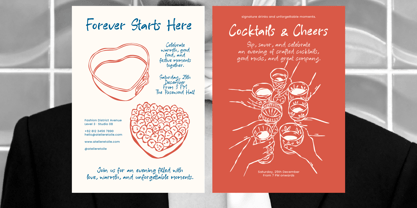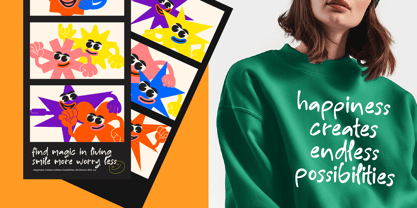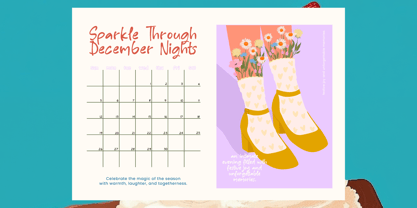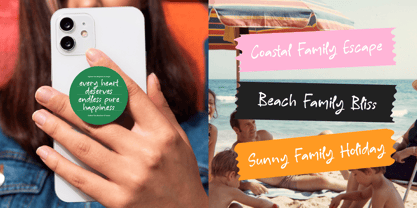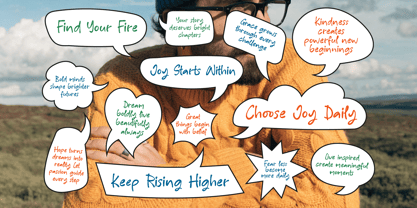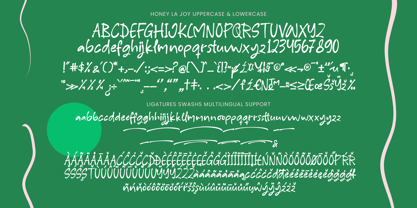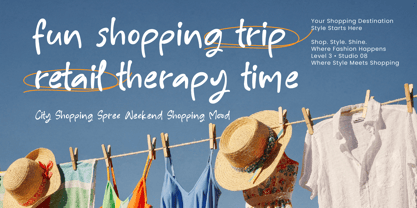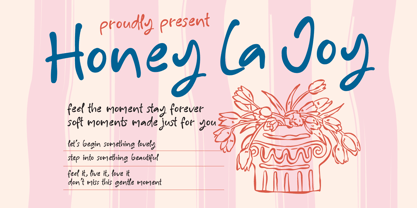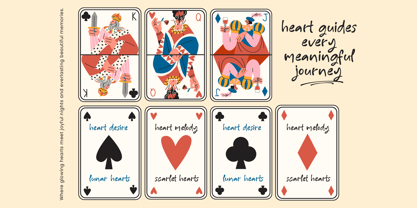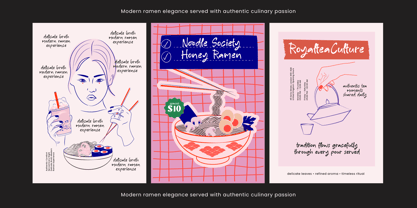
Honey La Joy
The Honey La Joy Font Family was designed by Heru Utama Putra and published by Letterena Studios. Honey La Joy contains 2 styles and family package options. More about this family
Honey La Joy - Natural Handwritten Font
Elevate your creative vision with a touch of authentic charm and organic flow. Honey La Joy - Natural Handwritten Font is a meticulously crafted typeface that captures the essence of natural handwriting with unmatched fluidity. Featuring 338 characters and 27 custom ligatures, this font provides the perfect balance between professional polish and a personal, hand-drawn aesthetic that resonates with modern audiences.
Transform your brand identity with effortless sophistication and a contemporary edge. This typeface is the ideal application for luxury branding, premium packaging design, and high-end editorial layouts. Whether you are crafting social media graphics or elegant invitation suites, Honey La Joy - Natural Handwritten Font is perfect for projects that demand a warm, approachable, yet exclusive aesthetic.